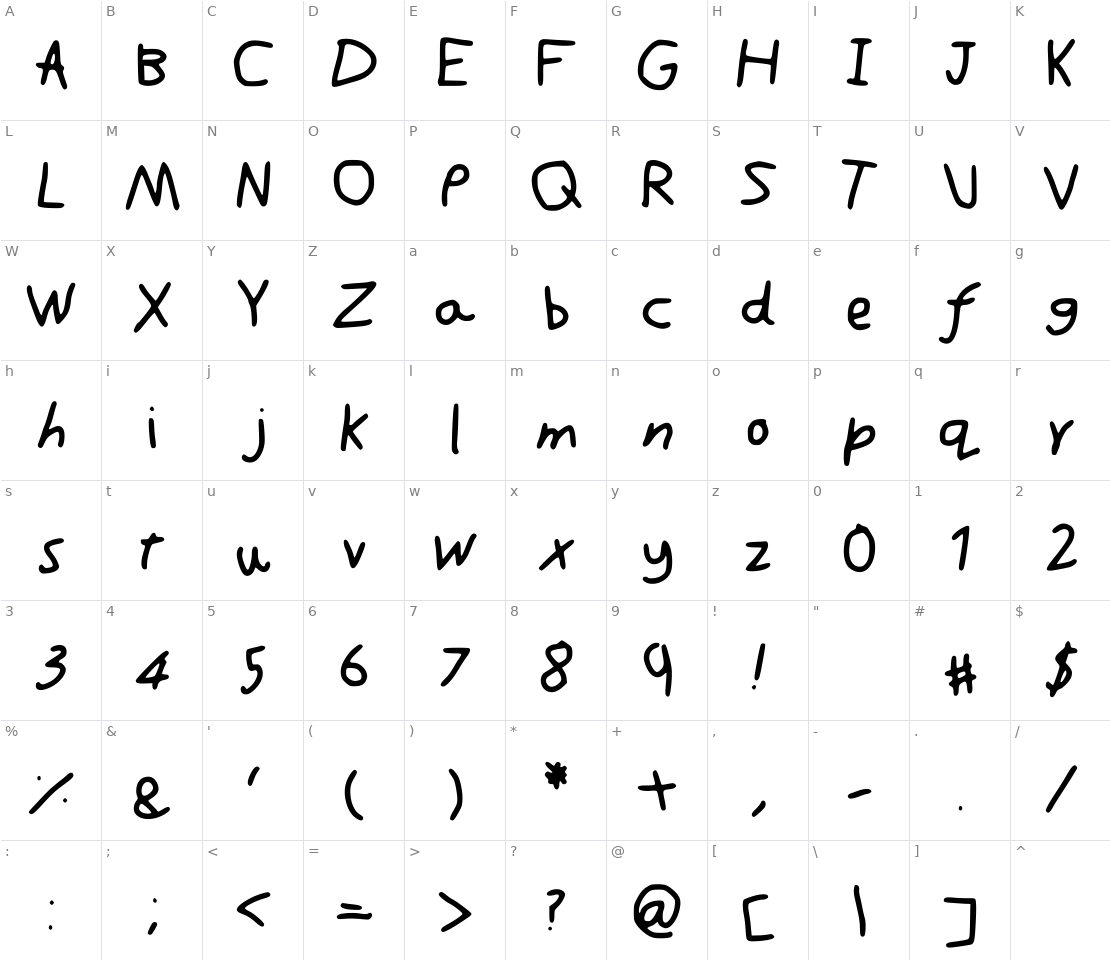
Cousin
by Bjokey
Cousin is a casual handwritten face from Bjokey that feels like quick notes jotted down with a rounded marker. The letterforms are relaxed and friendly without trying too hard, with soft edges and natural spacing that keep things readable. Good for informal branding, personal blogs, packaging, or anywhere you want type that feels approachable and everyday.